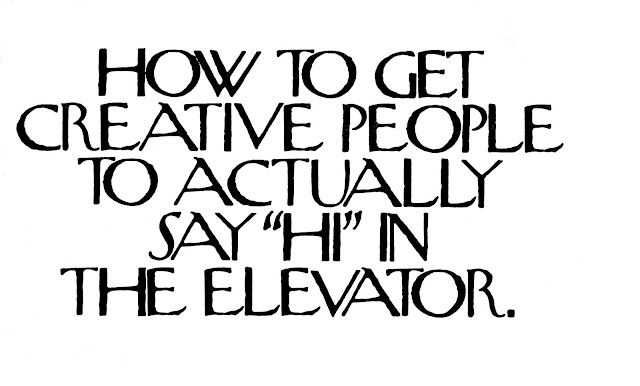
1985 advertisements by the Lord, Geller, Federico, Einstein agency
New York Magazine, June 8, 1987… Dissatisfied with the work of its advertising agency, Ted Bates, the
magazine has gone back to its old agency, Lord, Geller, Federico, Einstein.
It, in turn, is bringing back the old advertising line “The New Yorker, yes,
The New Yorker.” …
1993 advertisement with new fonts in the style of The New Yorker alphabet
Lewis Allen’s wood-cut alphabet for his book, Journeys To Bagdad (1915),
was the source for Rea Irvin’s 1925 alphabet for The New Yorker magazine.